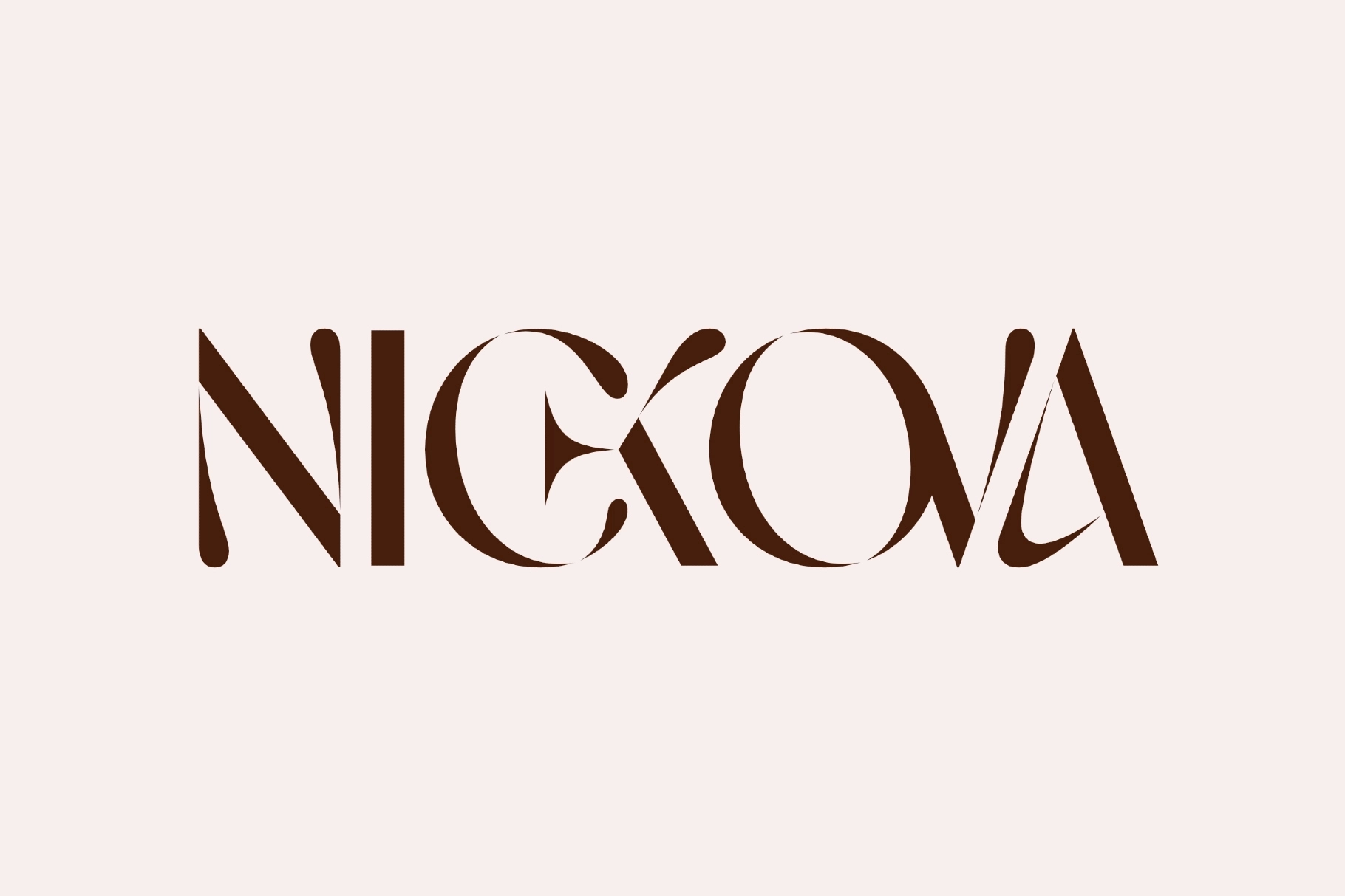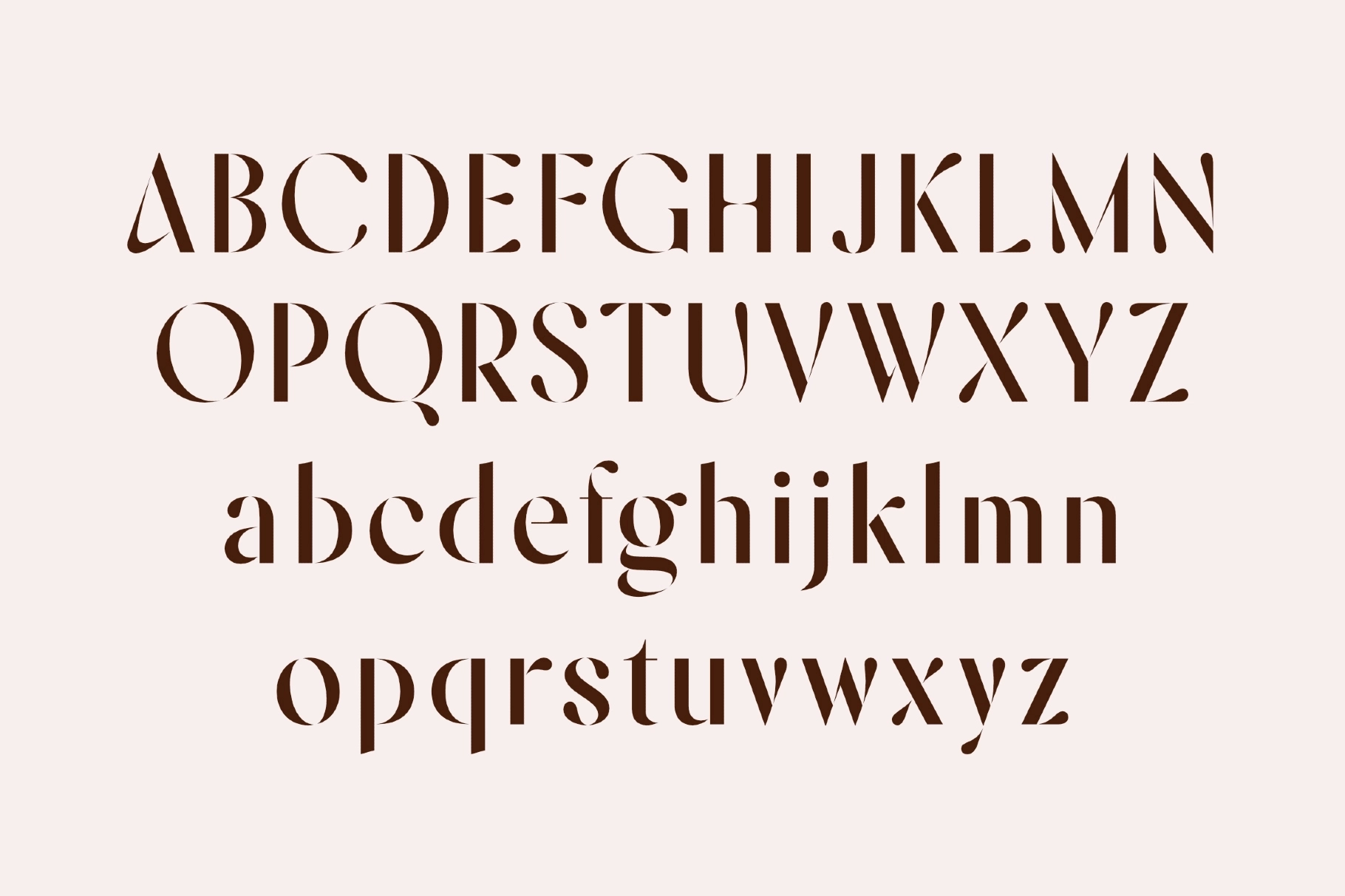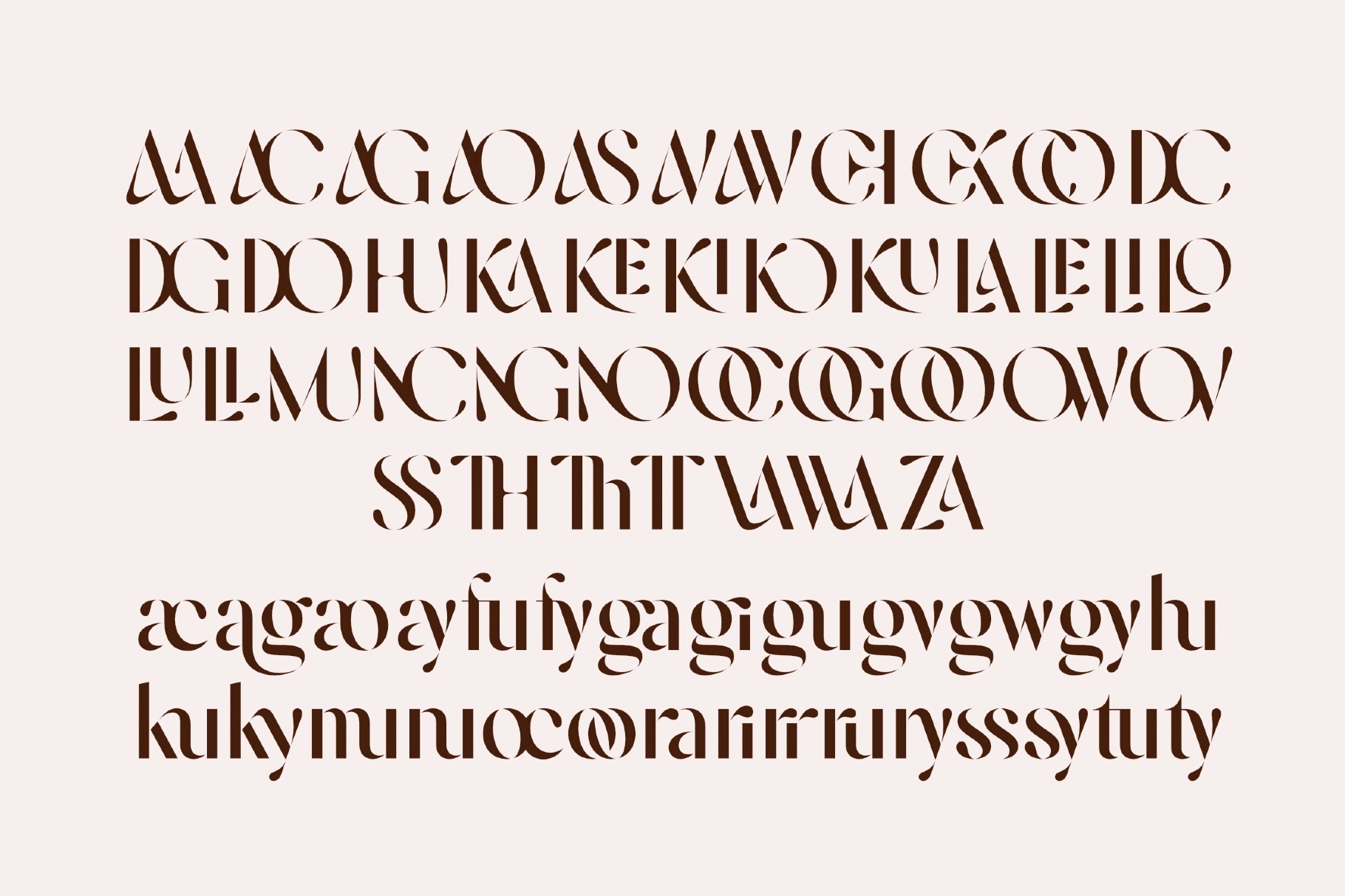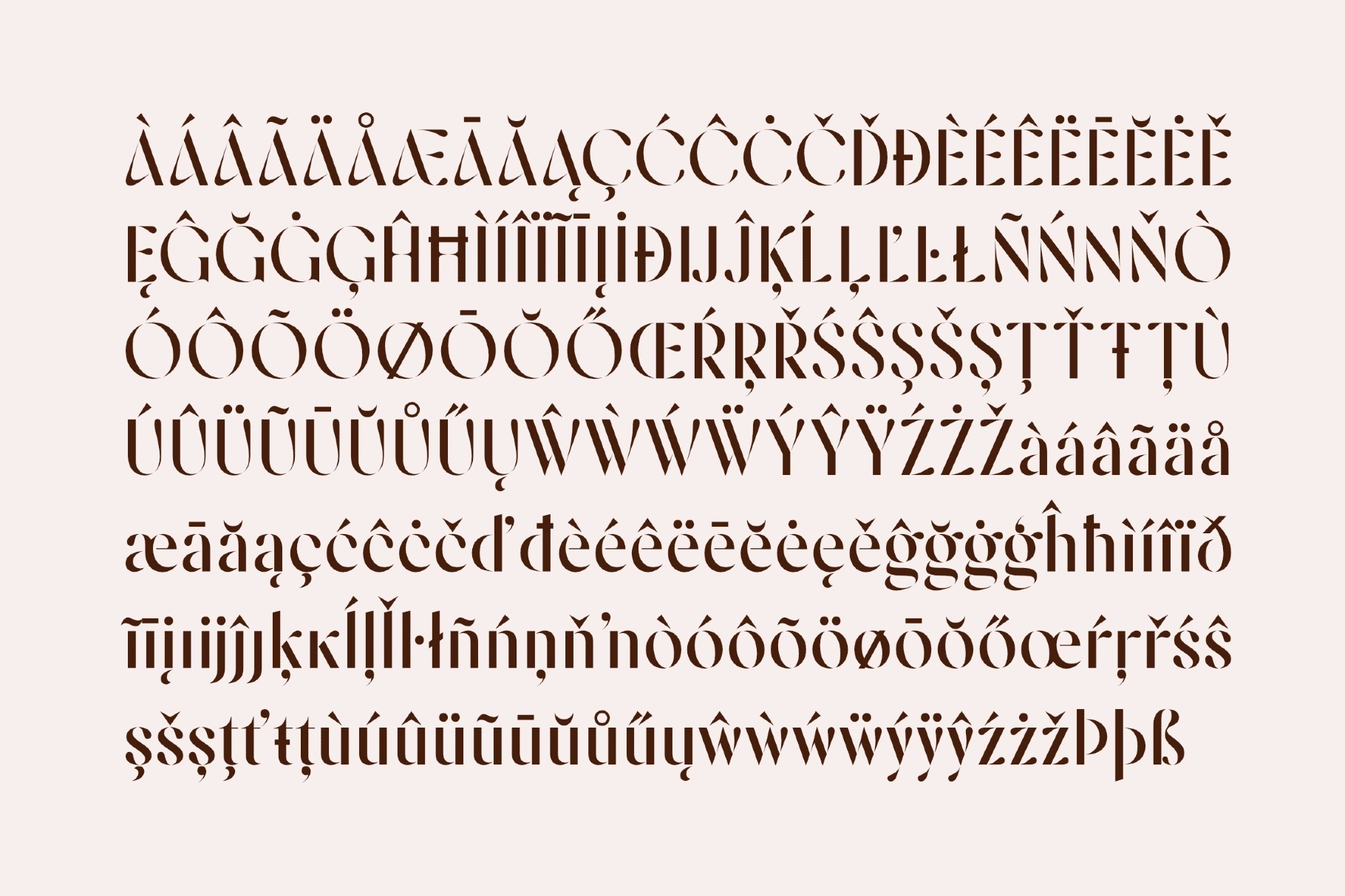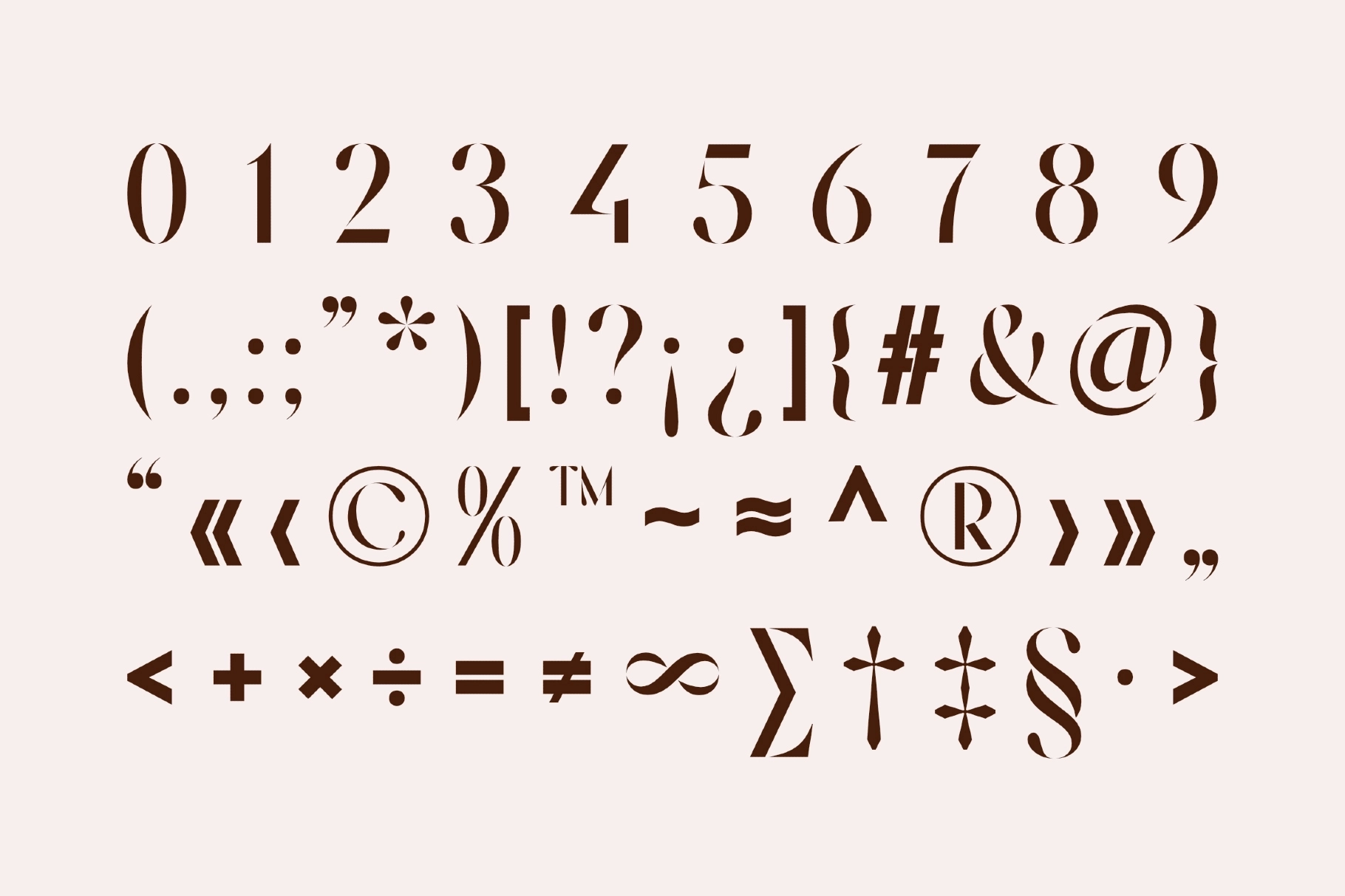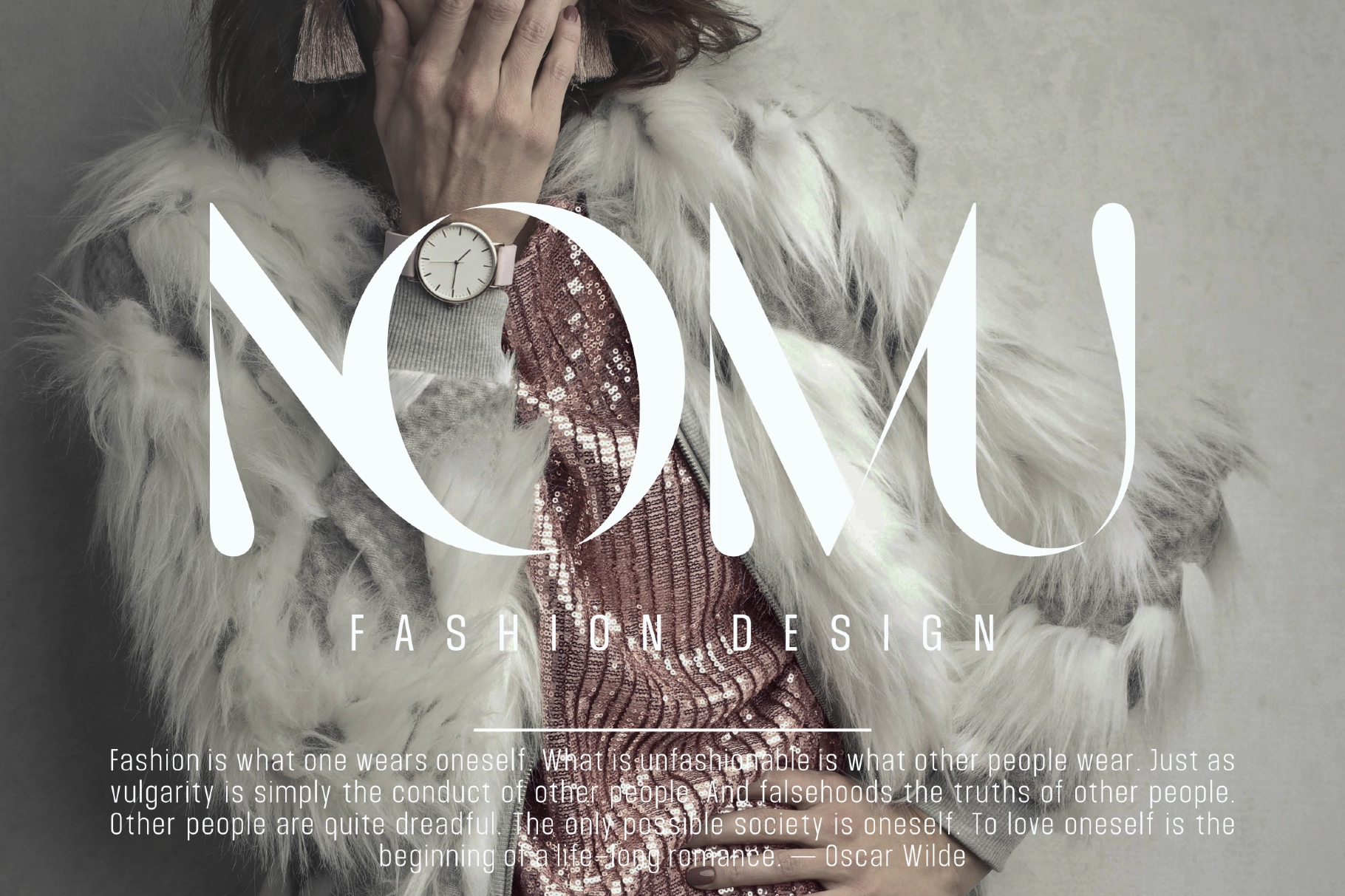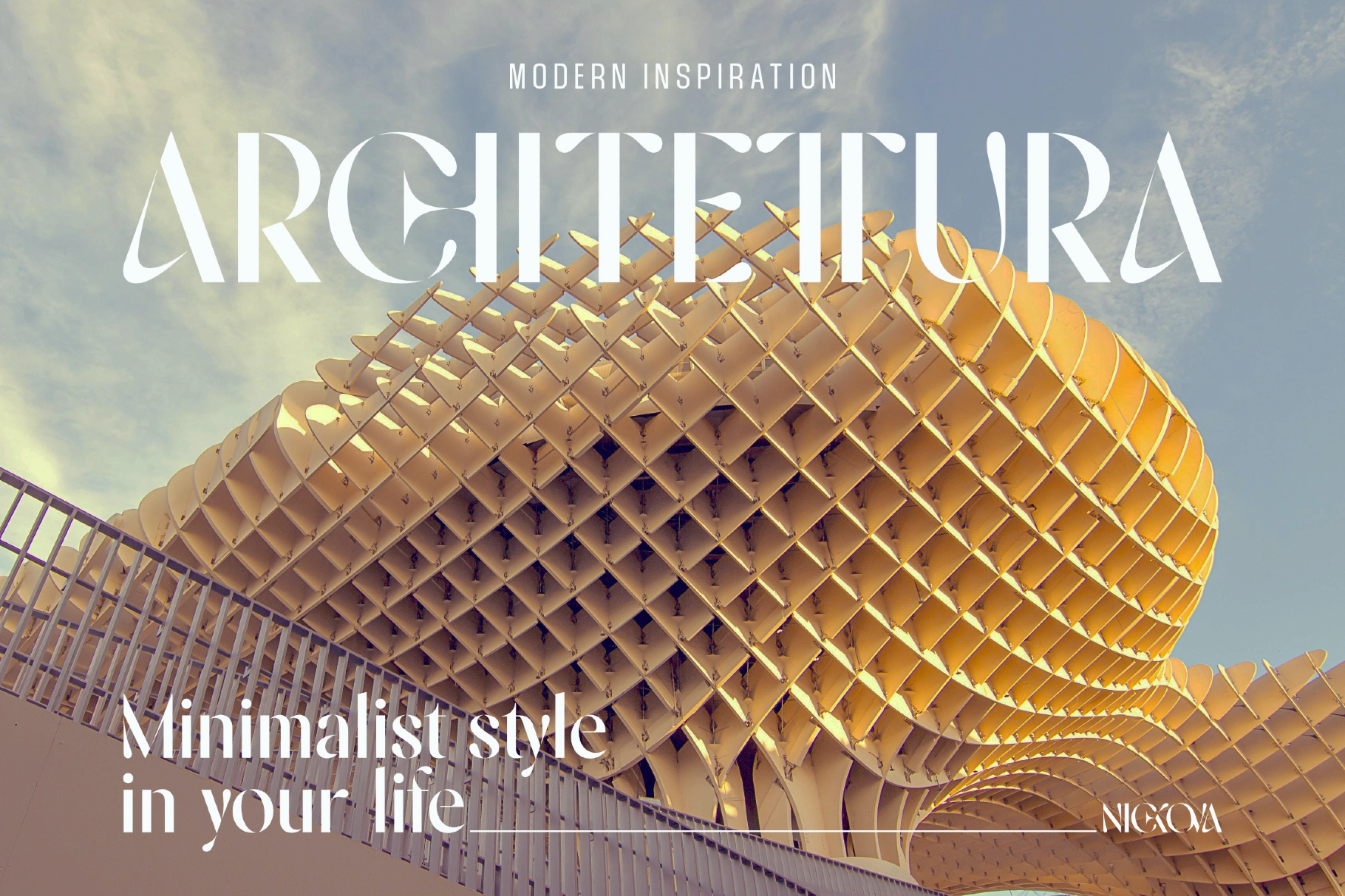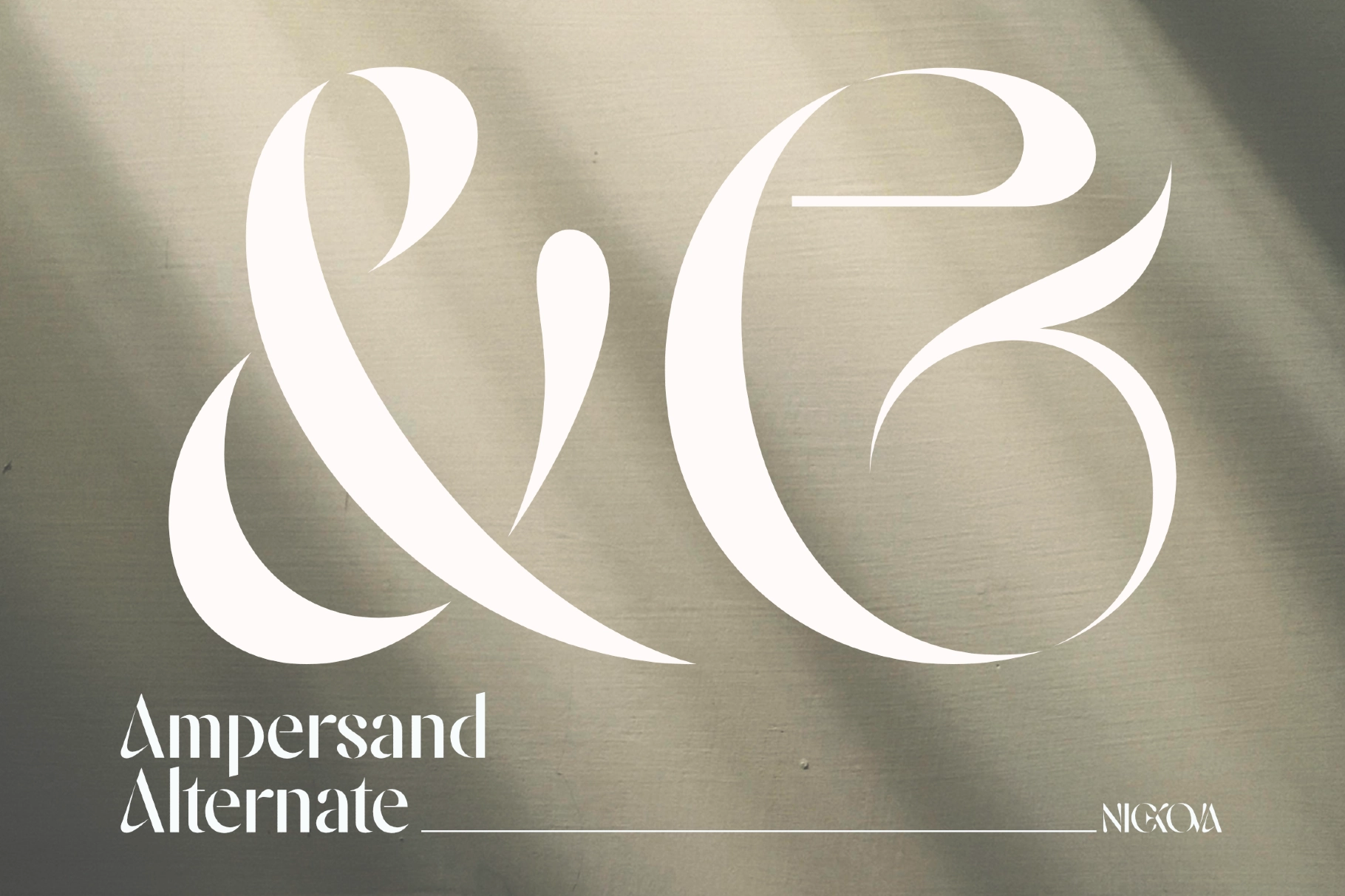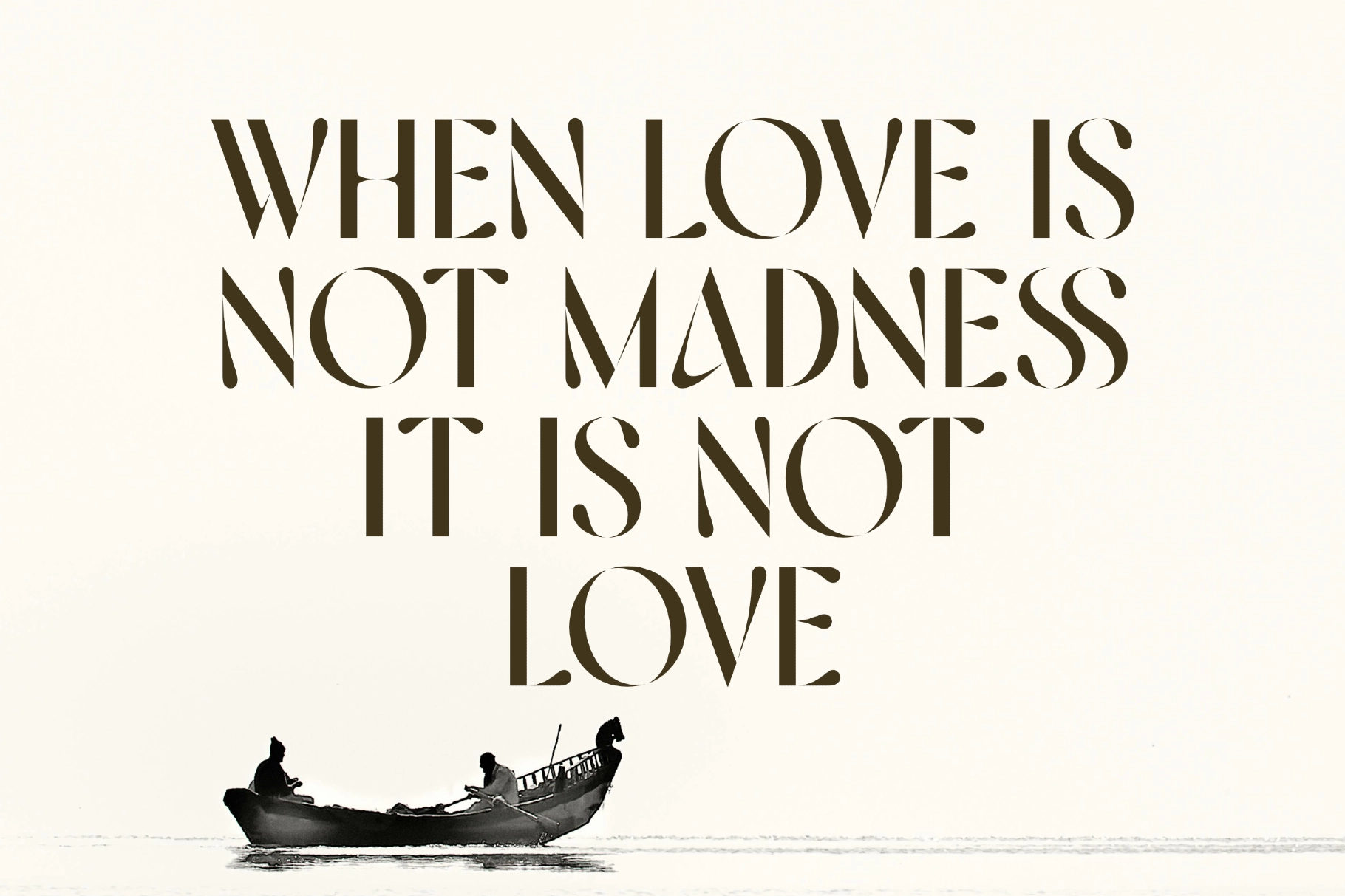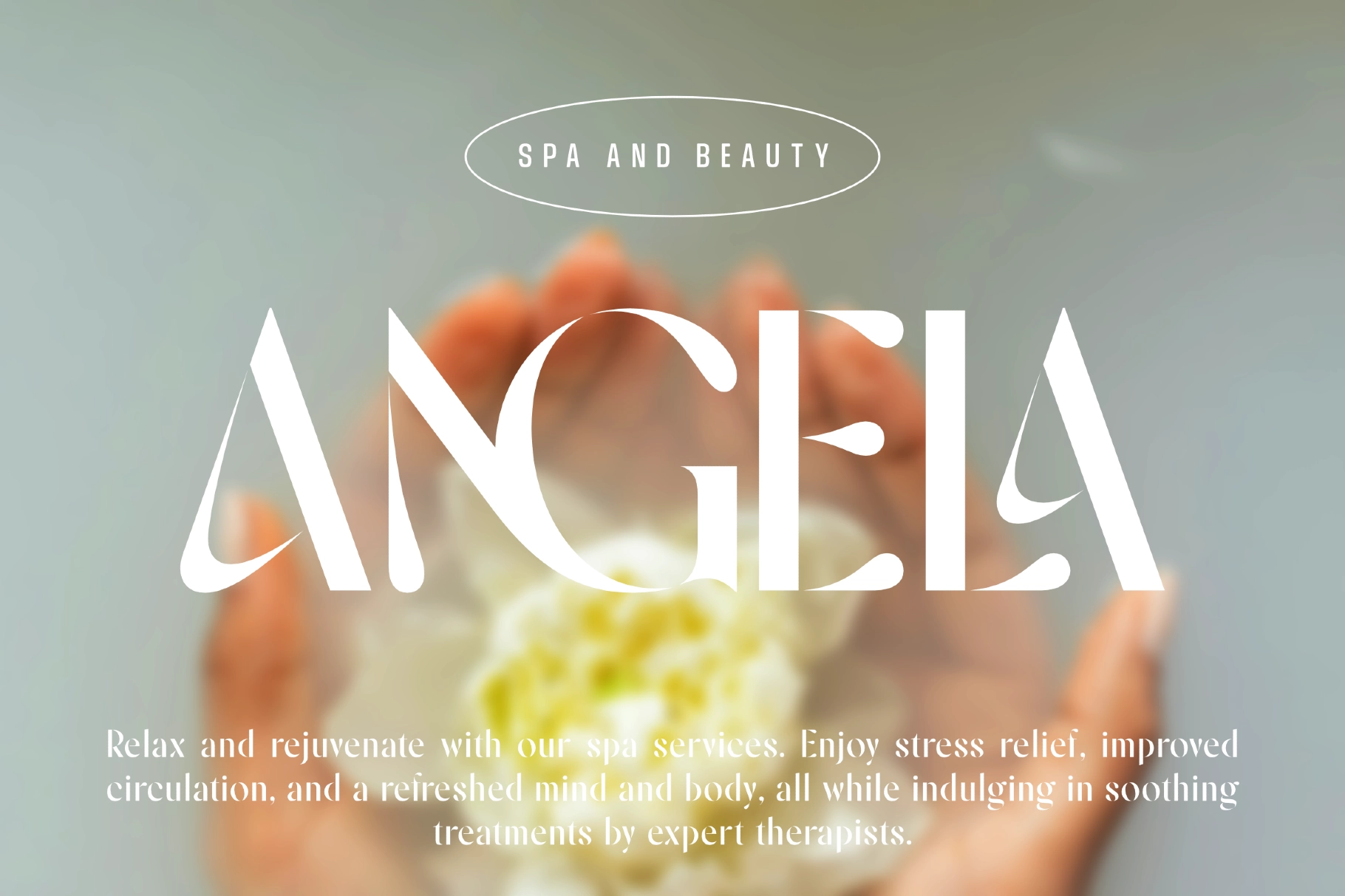
Nickova — Luxury Fashion Stencil Typeface
This elegant display font pairs slim proportions with sharp stencil cuts, giving each letter a polished, high-contrast look. It is poised and graphic at once, with crisp verticals, rounded counters, and decorative breaks that turn simple words into statement typography.
Nickova works well for fashion branding, cosmetic packaging, jewelry logos, magazine covers, wedding stationery, boutique signage, social media quotes, perfume labels, book covers, restaurant menus, portfolio headers, and more. Its ligatures add extra character to short headlines and wordmarks, while the letterforms keep titles clear enough for editorial spreads and premium brand systems.
• Standard & discretionary ligatures
• 60+ ligatures